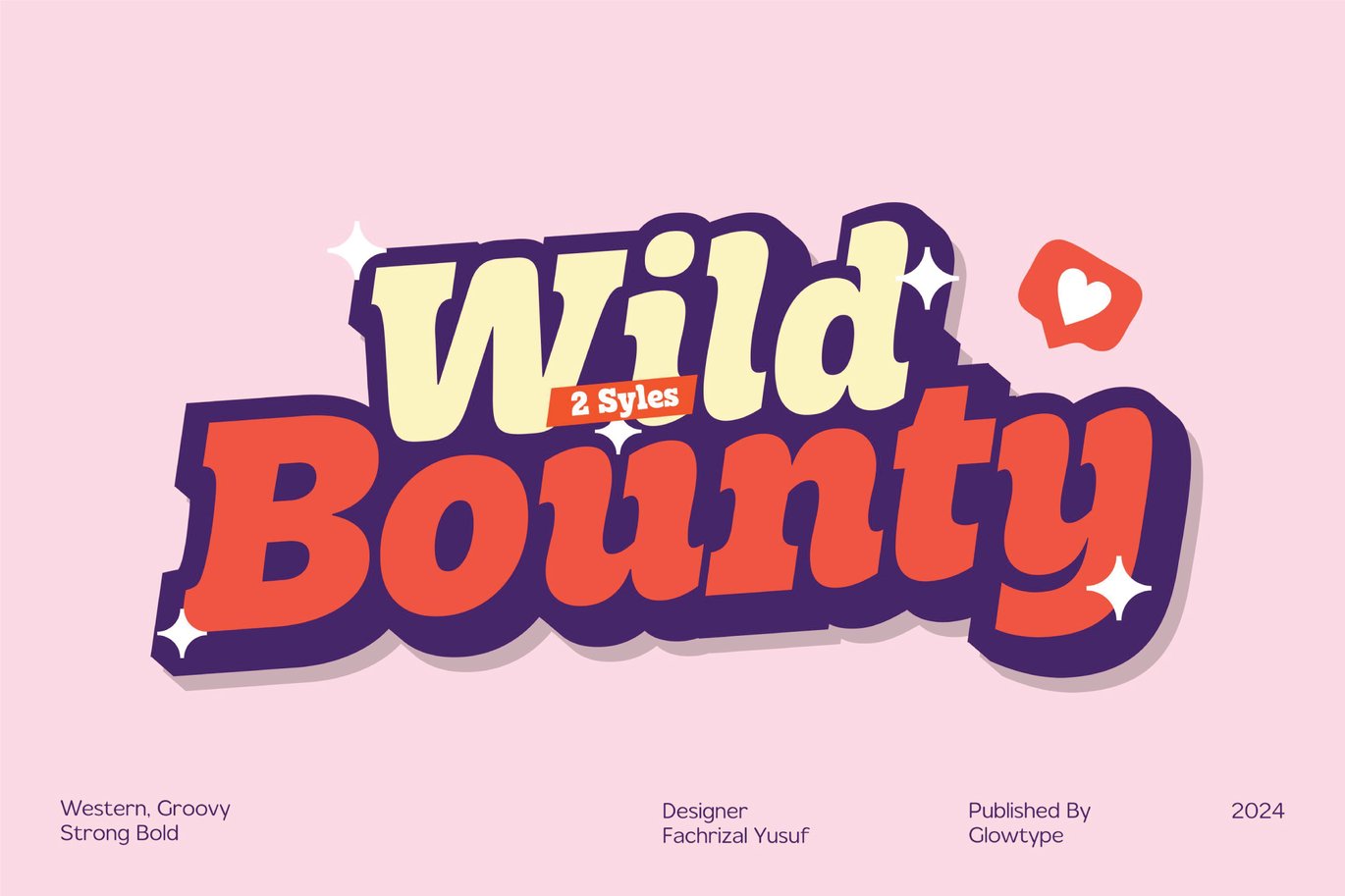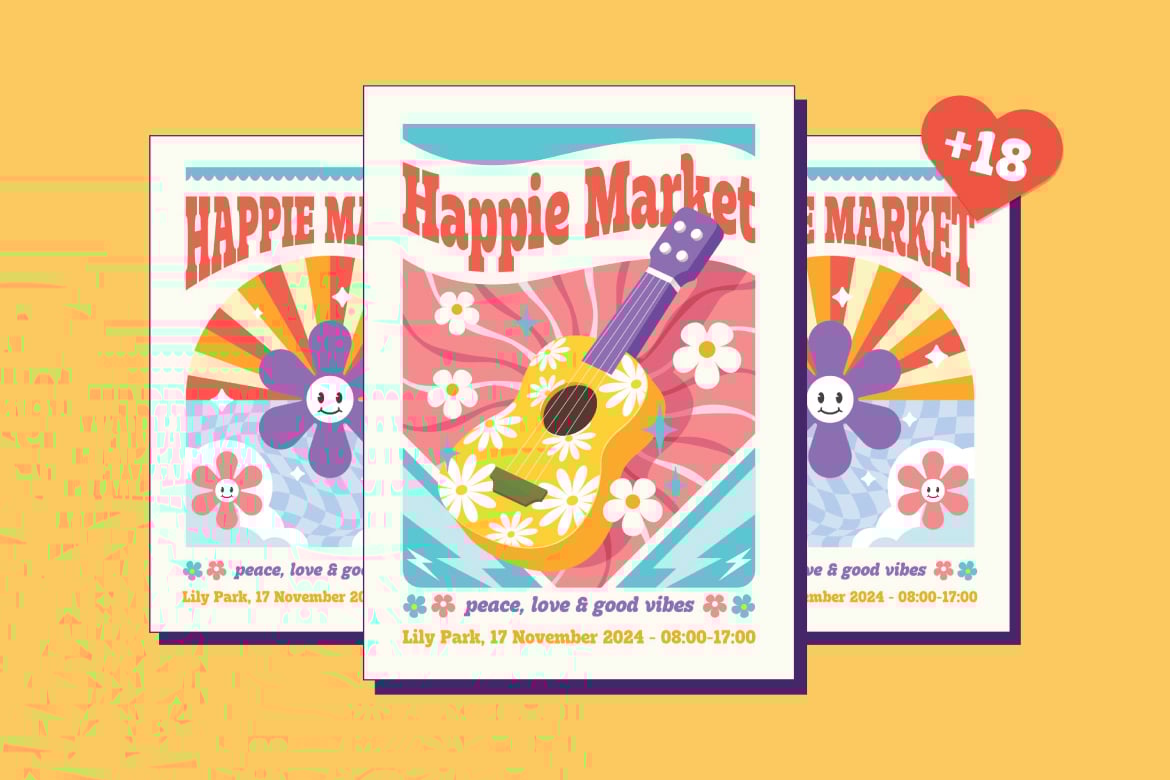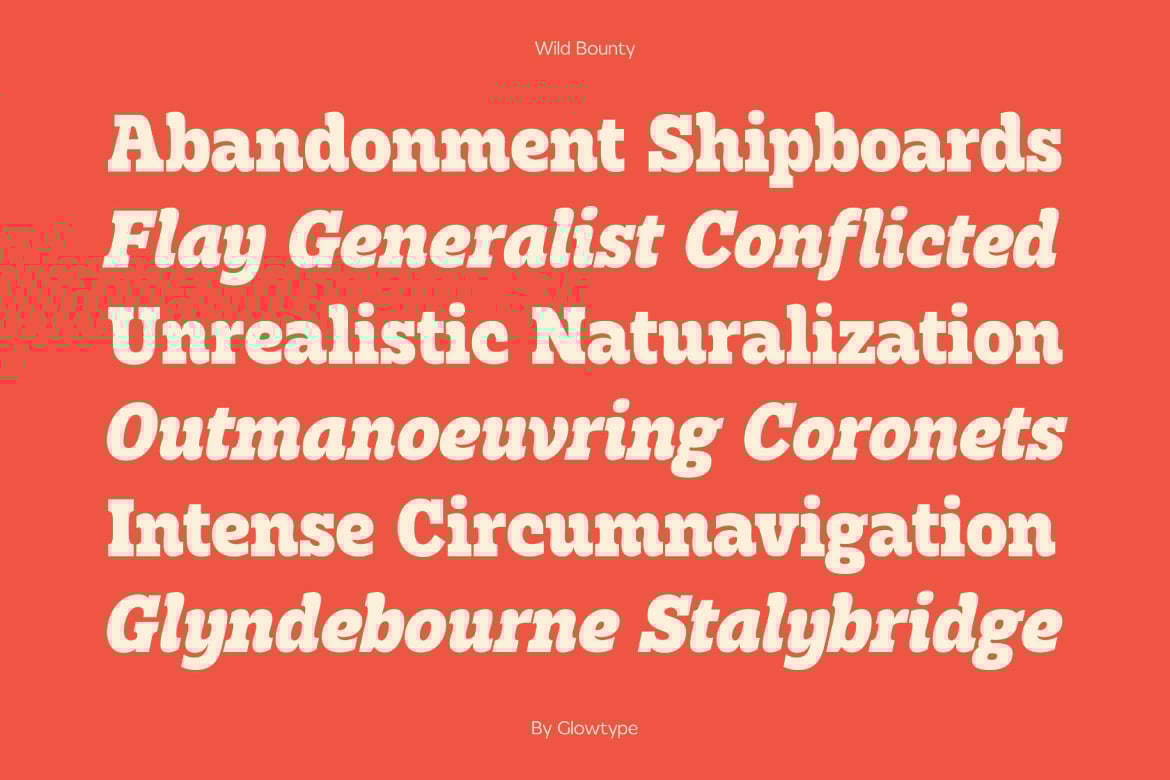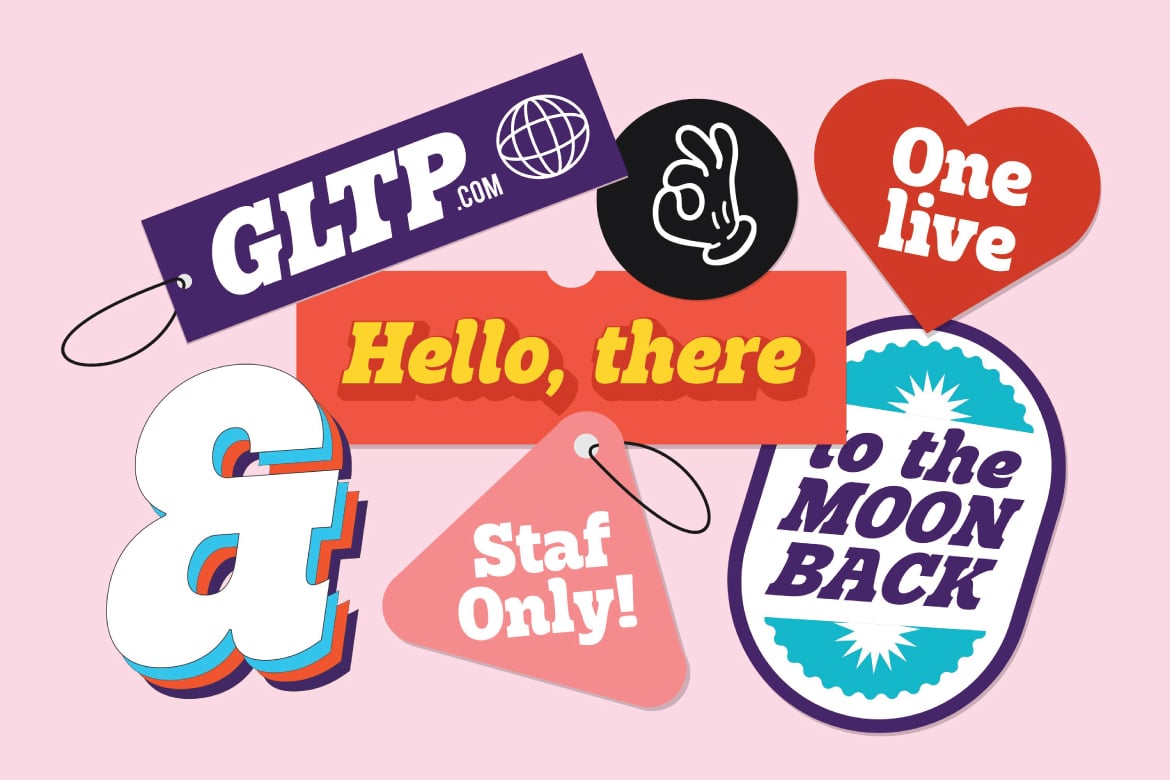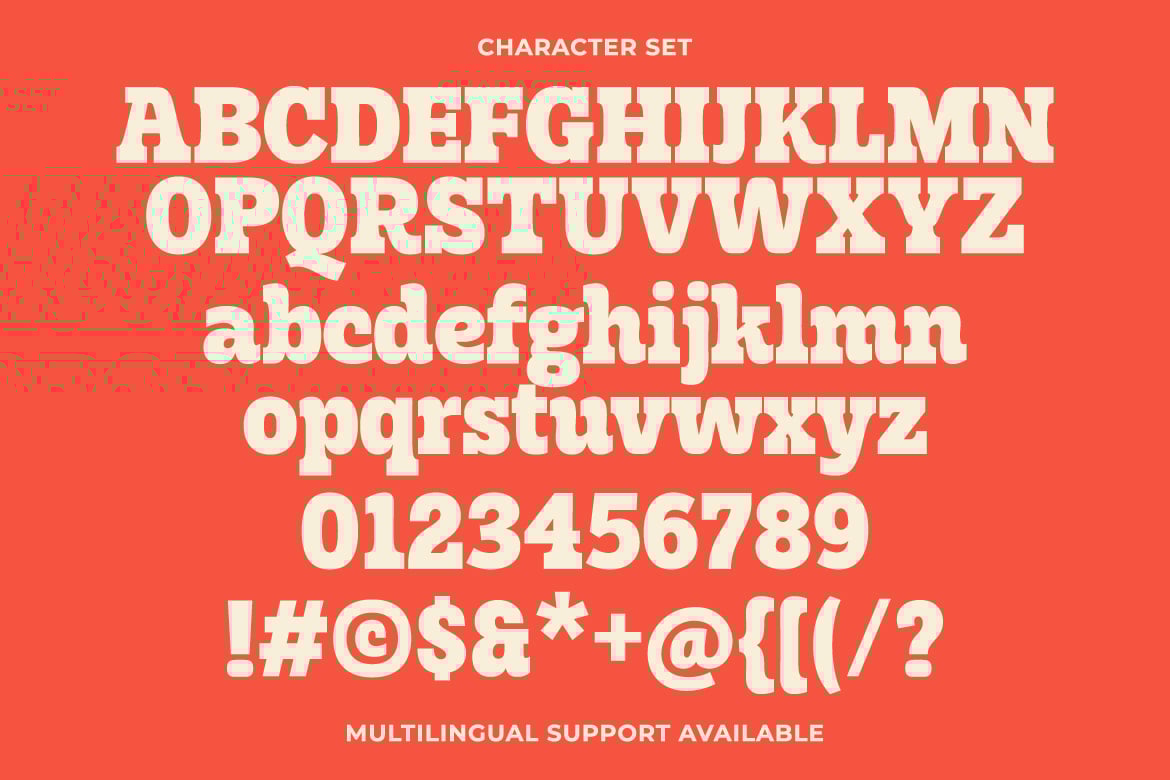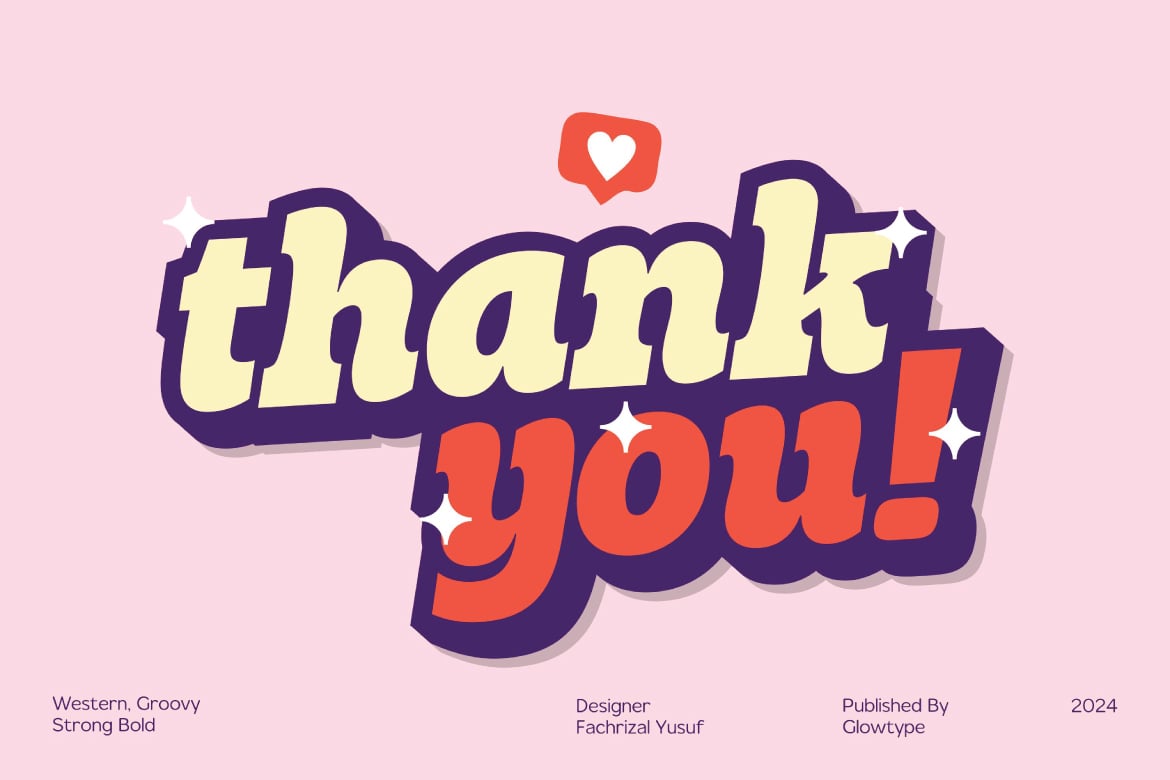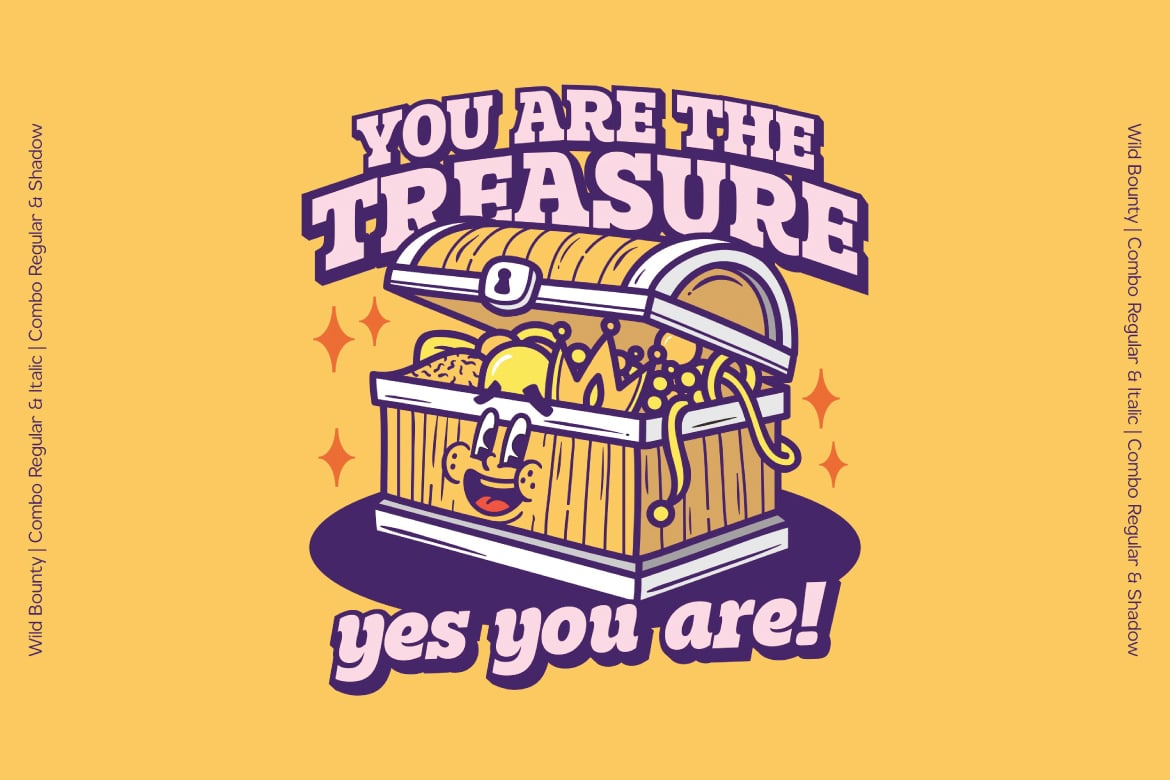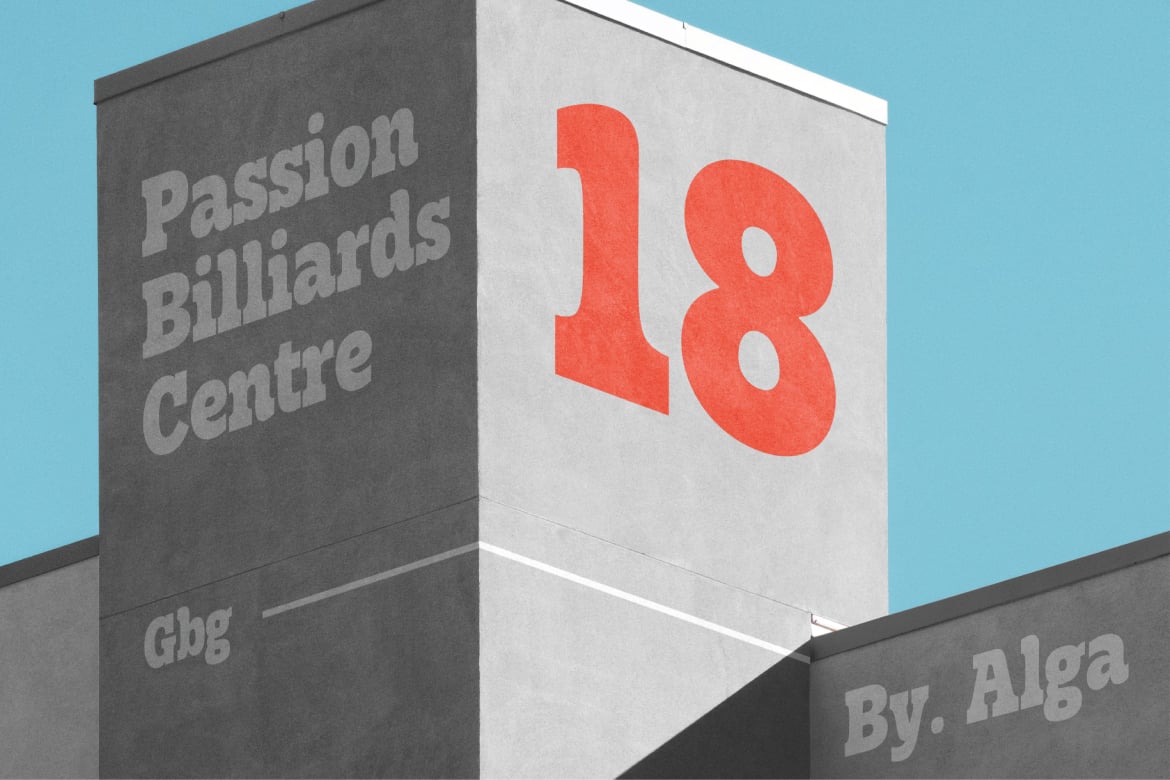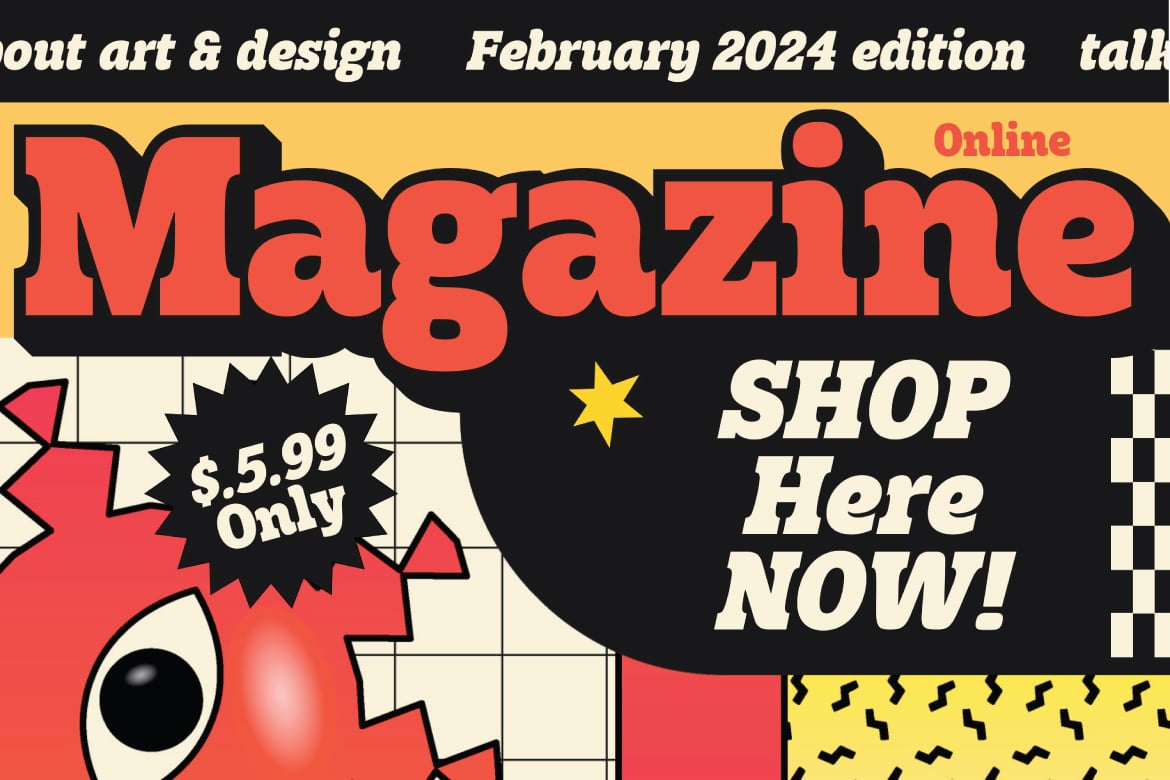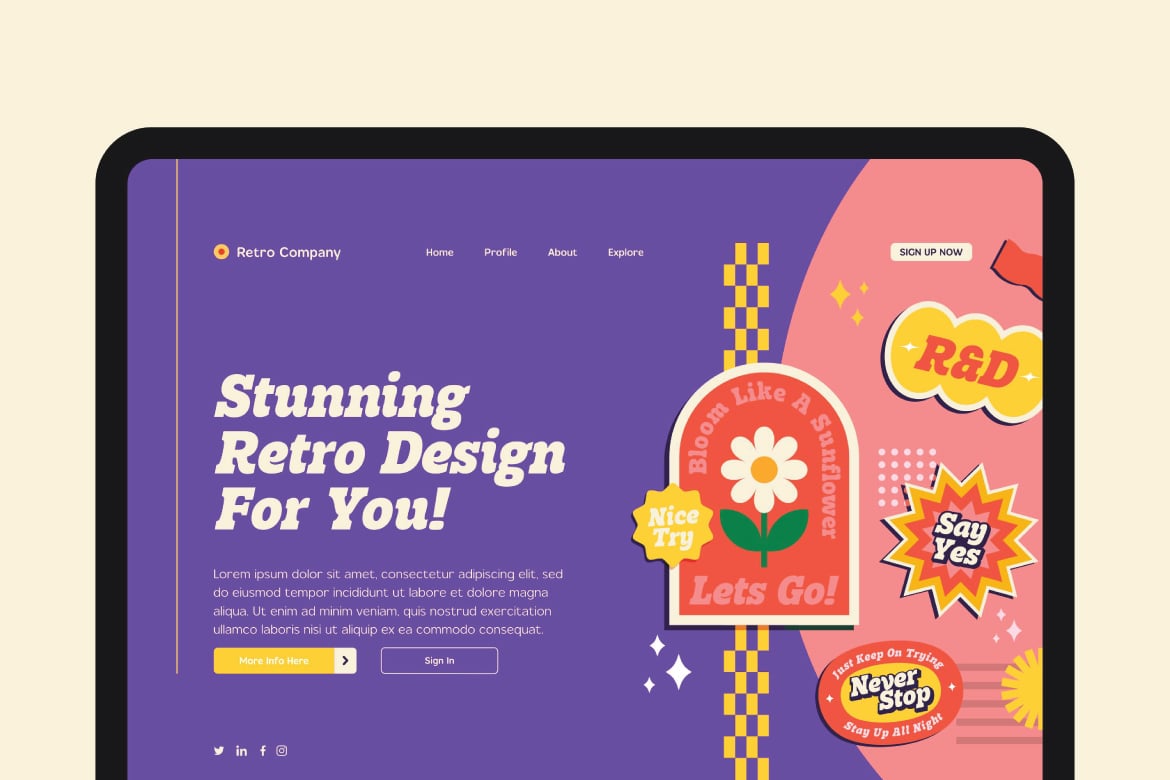
GT Wild Bounty – Western Groovy Font
GT Wild Bounty – Western Groovy Font by Glowtype
Another banger from me. Introducing Wild Bounty A strong slab display font, inspired from vintage cowboy movie,vintage western vibes hipster groovy, retro and psychadelic. Crafted with love & passion, it’s made to give it western, groovy, hipster, and retro look. Come with extrude shadow to make it more pop up for your branding!
Available in 2 styles, Regular & Italic
Wild Bounty is perfect for display purposes such as editorial projects, Logo designs, Music Albums, Apparel Branding, Movie Title, Youtube Cover, product packaging, magazine headlines, or simply as a stylish text overlay on any background image.